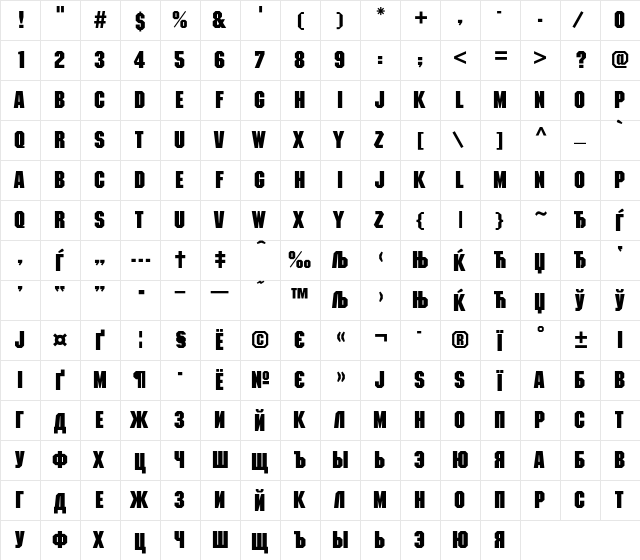
MachineC Regular
Design Context for MachineC Typeface
MachineC takes a measured approach to typography — its balanced proportions and neutral character make it a reliable workhorse for both digital and print work.